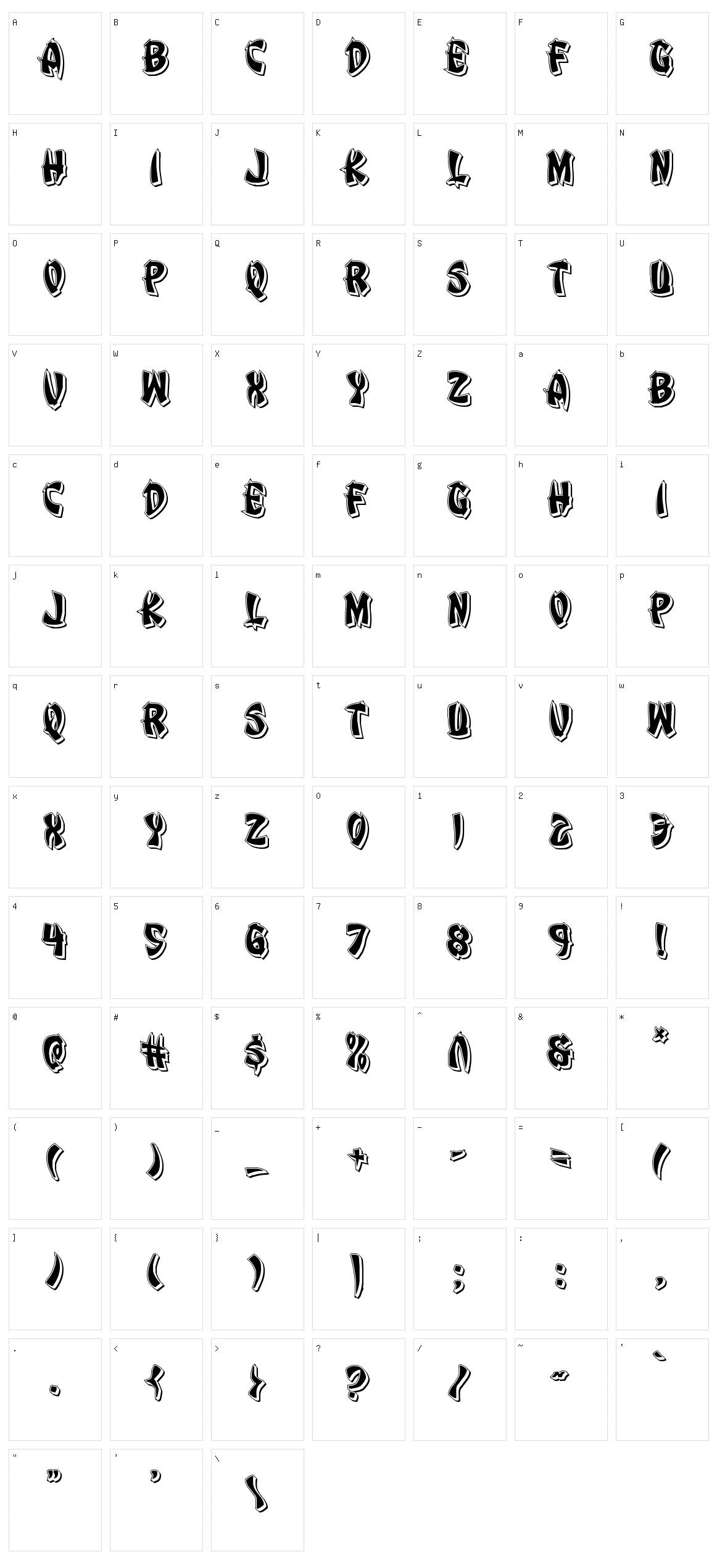
This font comes with the following 25 versions: Regular, Italic, Leftalic, Condensed, Condensed Italic, Expanded, Expanded Italic, 3D, 3D Italic, Engraved, Engraved Italic, Punch, Punch Italic, Bevel, Bevel Italic, Rotated, Rotalic, Jumbled, Jumbled Italic, Halftone, Halftone Italic, Gradient, Title and Title Italic.